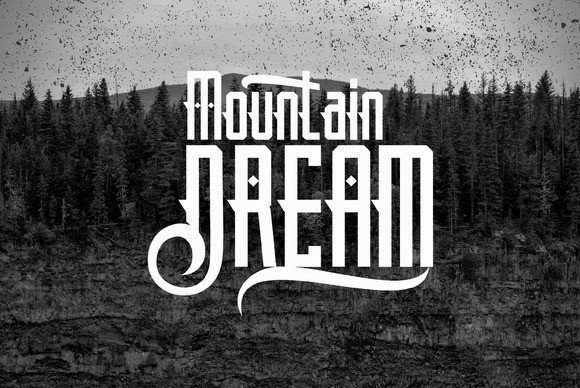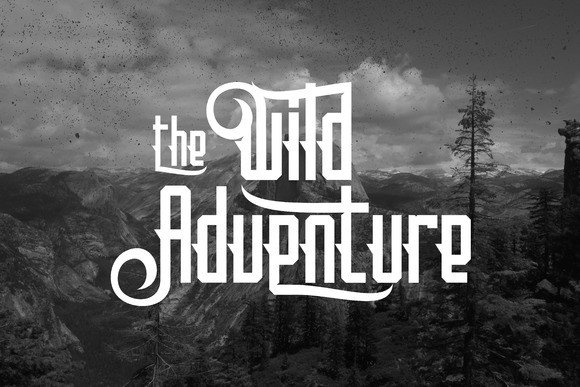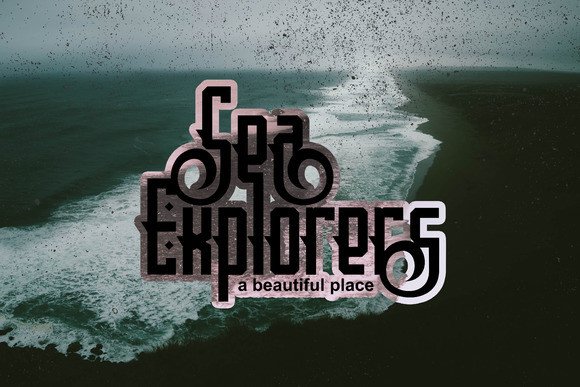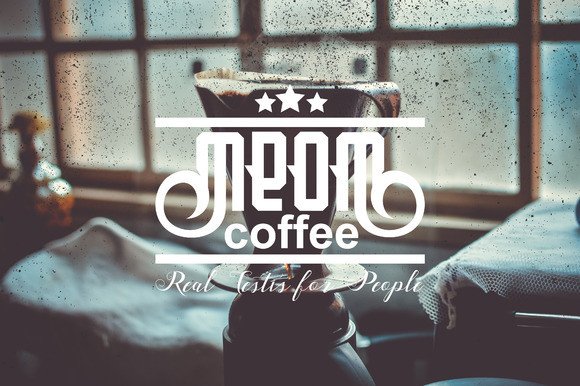
Introduction to Jackland Two Font
Have you ever found yourself rummaging through an old trunk in your attic, uncovering forgotten photographs and dusty vintage postcards? For many designers, this moment sparks a creative spark, inspiring a new project or design direction. It’s moments like these that remind us of the beauty in nostalgia and the importance of incorporating timeless elements into our work.
Enter the Jackland Two Font, a high-quality display font that embodies the essence of rustic charm. With its unique blend of vintage and modern elements, this font is perfect for designers looking to add a touch of retro flair to their creative projects. Whether you’re working on a design resource for a client or experimenting with a new concept, the Jackland Two Font is an invaluable asset in your design toolkit.
Key Features of Jackland Two Font
- Unique characteristics include a modern and sleek design, making it perfect for contemporary creative projects.
- Designed to be versatile, suitable for use in a variety of contexts, from digital to print media.
Honest Review: Jackland Two Font
I recently had the chance to try out the Jackland Two Font, a free download from a popular design resource. Overall, I was quite impressed with this high quality font.
- What works well: ✨ The font has a clean and modern aesthetic, making it perfect for a wide range of creative projects. It’s also highly versatile, suitable for both digital and print designs.
- What works well: ✨ The font is available in both regular and bold weights, giving you plenty of options to work with.
- What works well: ✨ The transparent background option is a huge plus, allowing you to easily layer the font over different images and backgrounds.
Overall, I’m really impressed with the Jackland Two Font. While it may not be perfect for every project, it’s a great option for those looking for a high quality, free download for their creative projects.
The Jackland Two Font is a high-quality, free design resource perfect for any creative project. With its unique style and transparent background, it’s an ideal choice for designers looking to add a touch of sophistication to their work.
Tips for Getting the Most Out of the Jackland Two Font
For the best results, use the Jackland Two Font in conjunction with other high-quality design elements. Experiment with different font sizes, colors, and combinations to create a unique look.
The Jackland Two Font is perfect for a variety of projects, including:
- Business cards and letterheads.
- Brochures and flyers.
- Posters and signage.